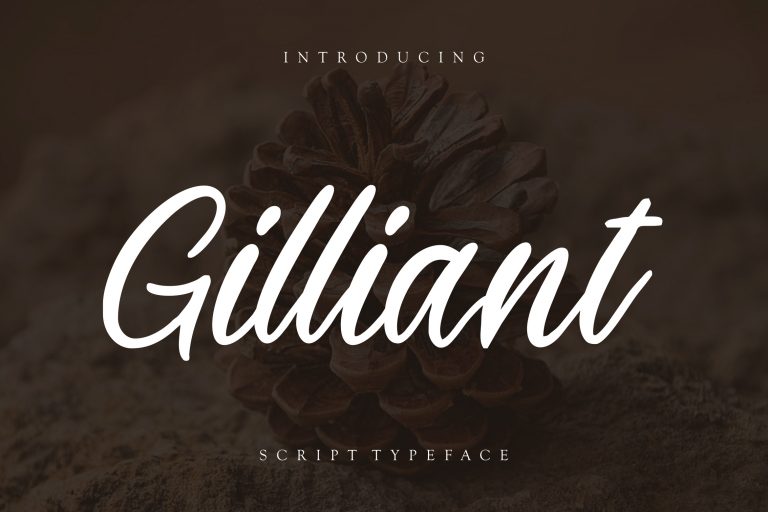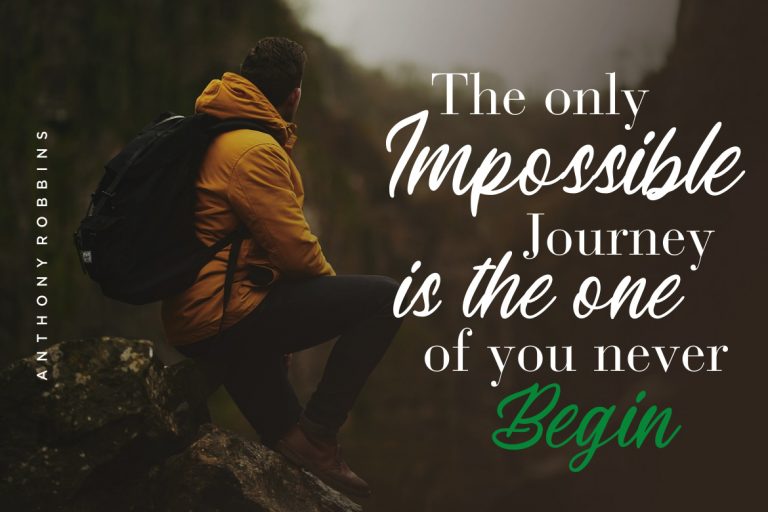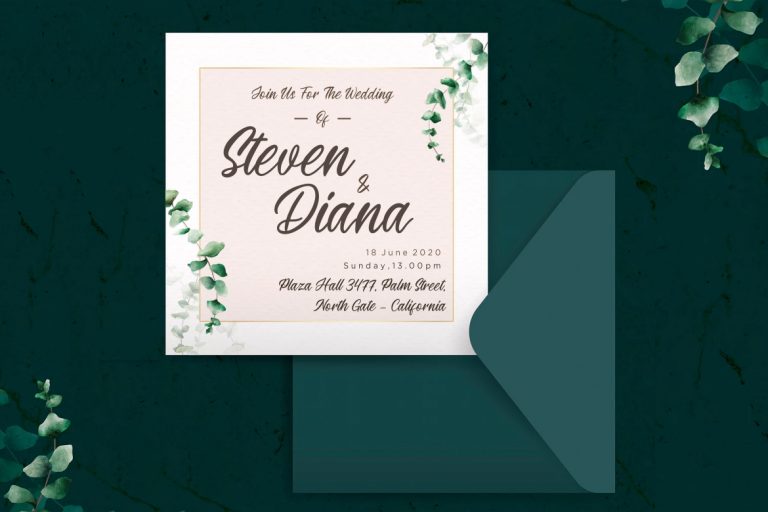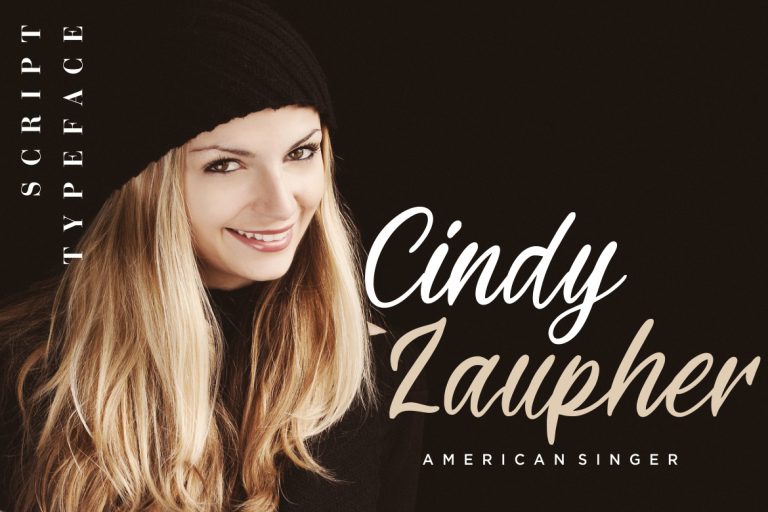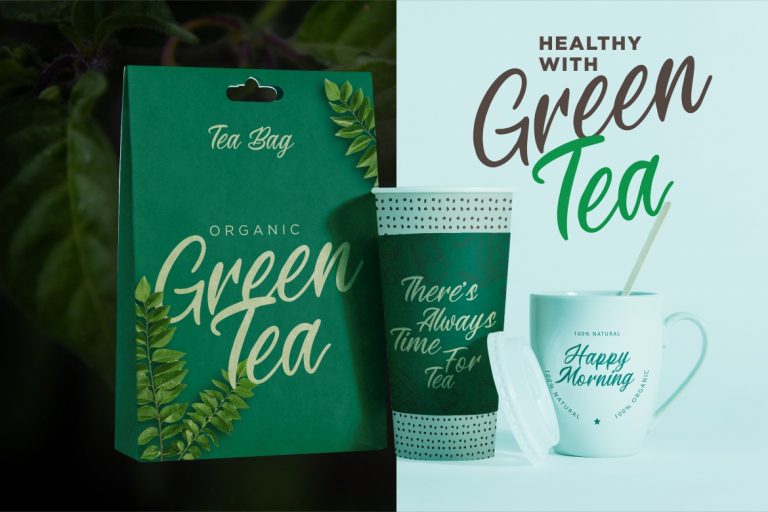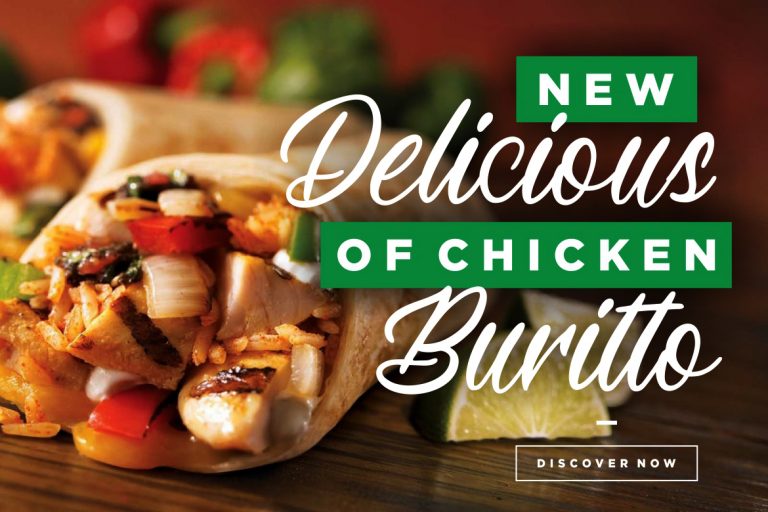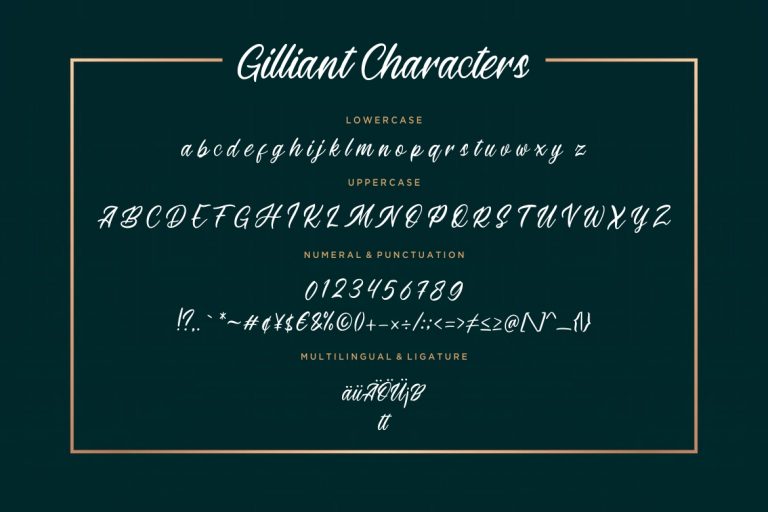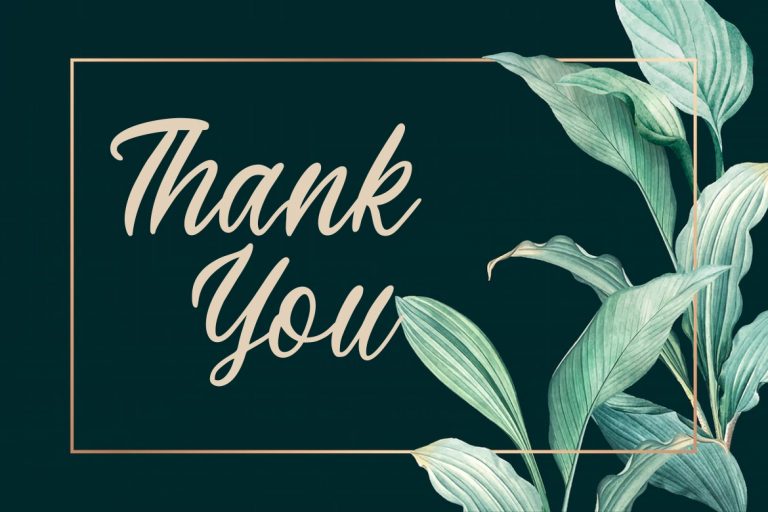
Gilliant Script Typeface
Gilliant is handwritten script with natural personal touch.
Gilliant is perfect for branding projects, logo, wedding designs, social media posts, advertisements, product packaging, product designs, label, photography, watermark, invitation, stationery and any projects that need handwriting taste.
- Fonts include multilingual support for; ä ö ü Ä Ö Ü ß ¿ ¡